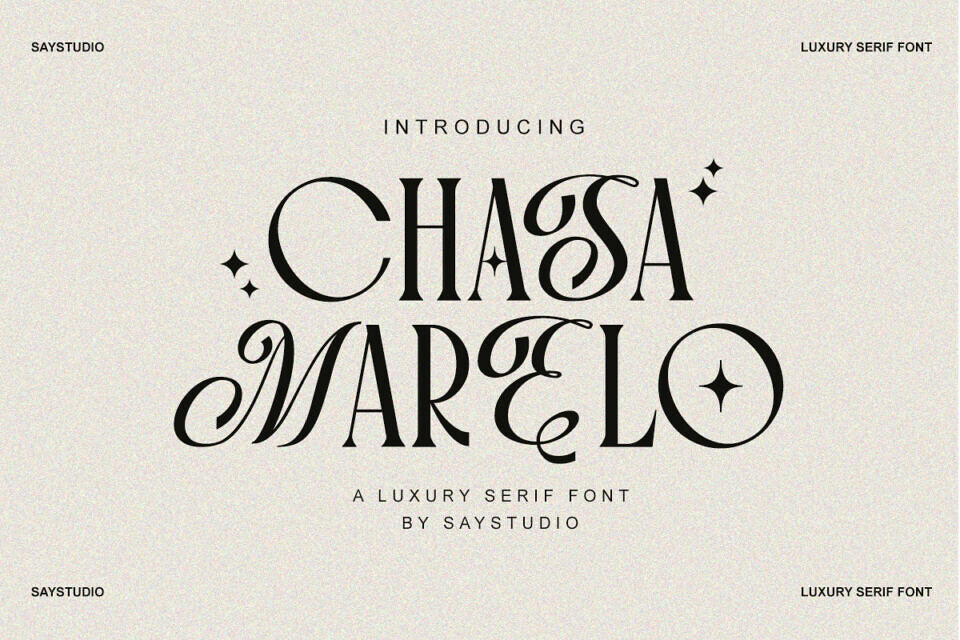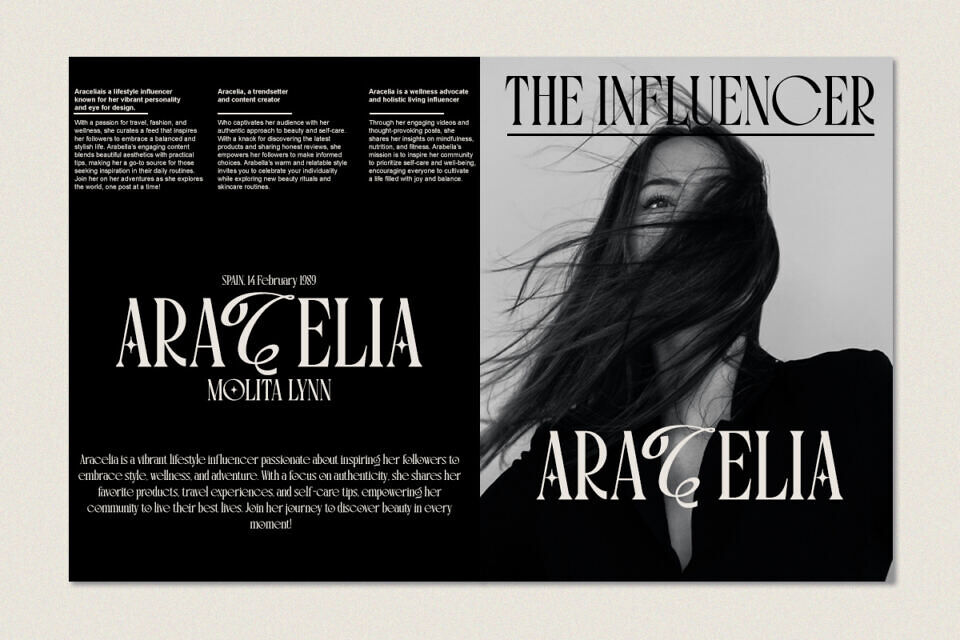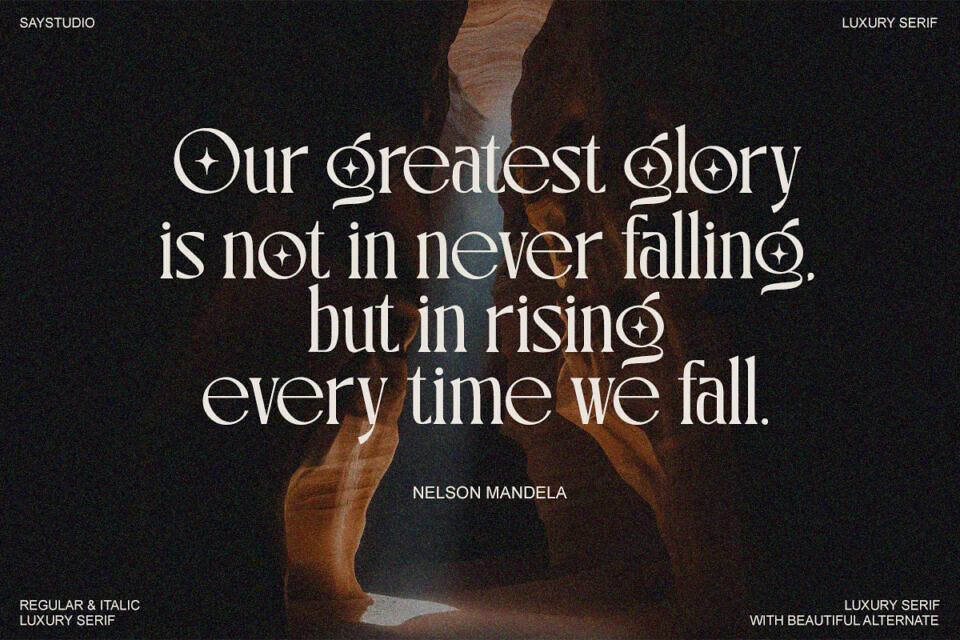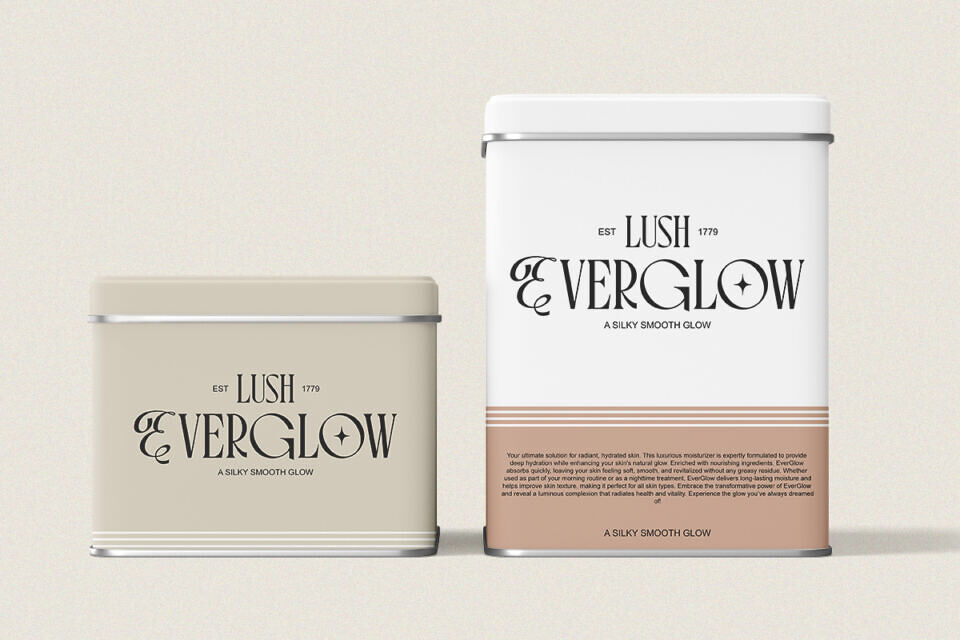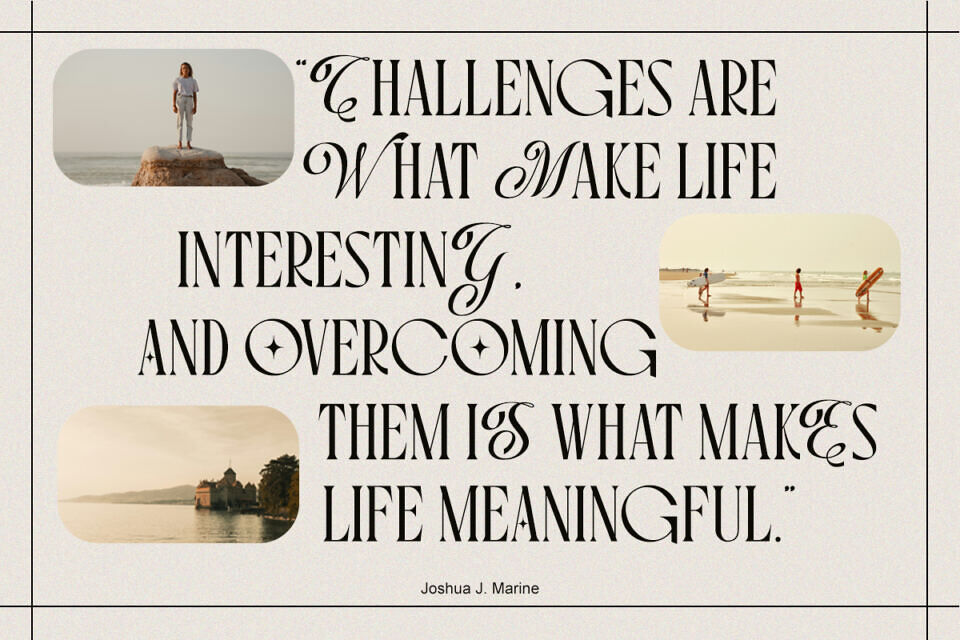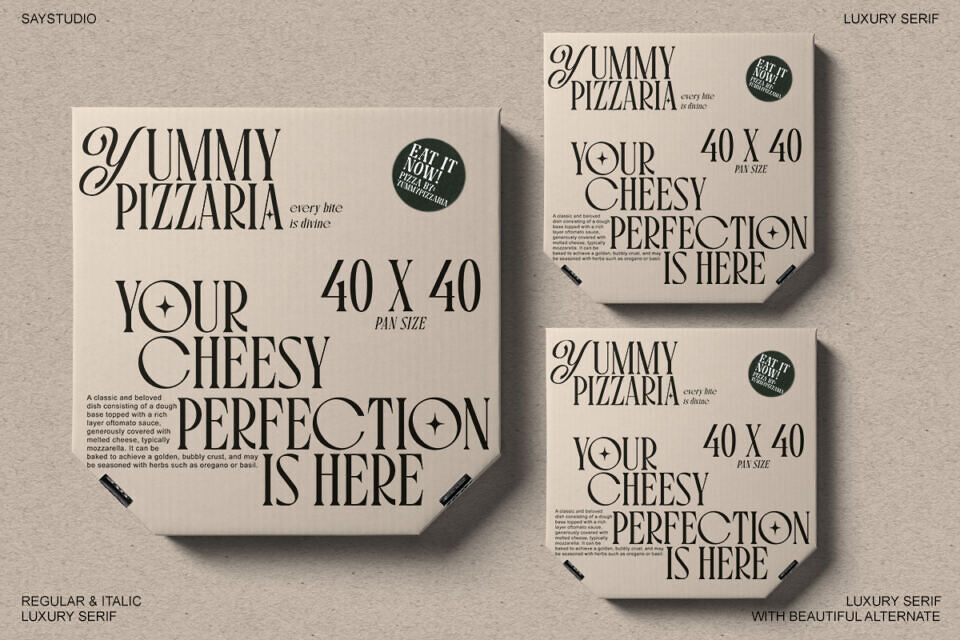
Chasa Marelo Font
Introducing Chasa Marelo, a luxurious serif font that exudes elegance and sophistication. With its classic charm and modern twist, this font is perfect for high-end projects.
It features regular and alternate uppercase letters, as well as full language support, punctuation, and numerals. With attention to detail and a commitment to quality, Chasa Marelo helps businesses stand out and convey a sense of luxury and refinement.